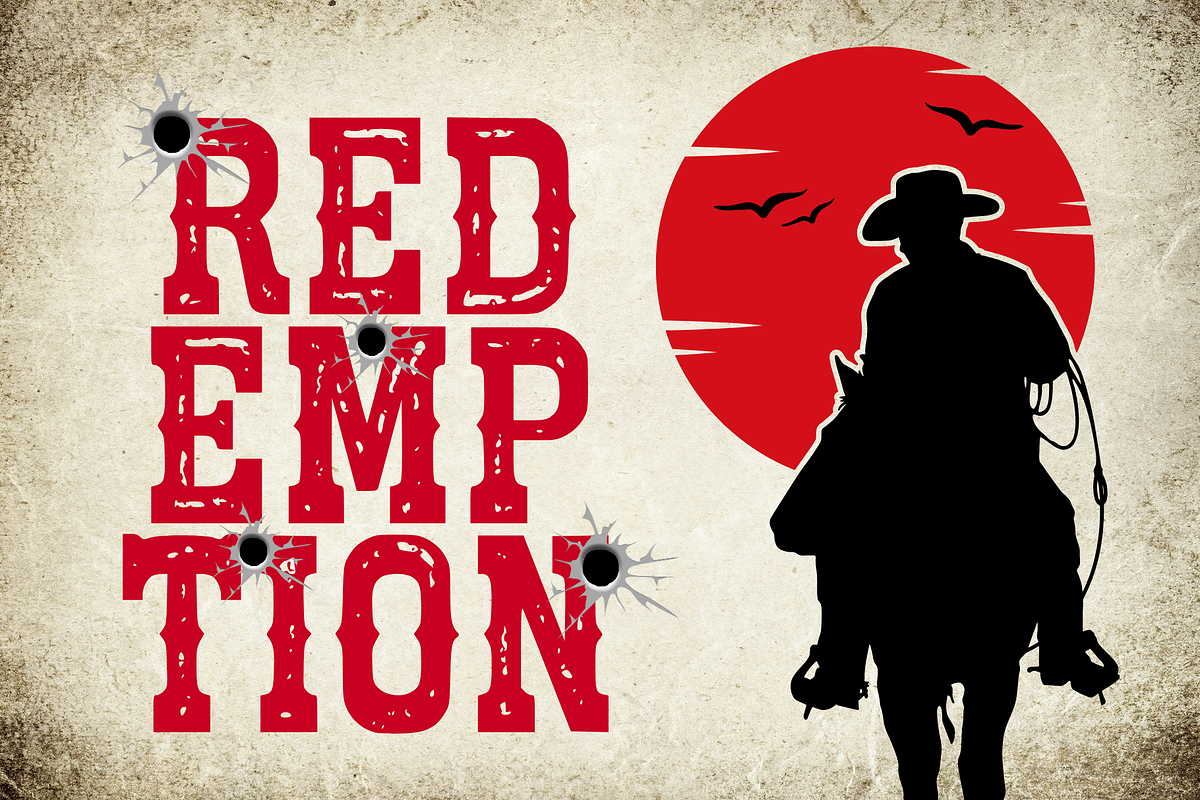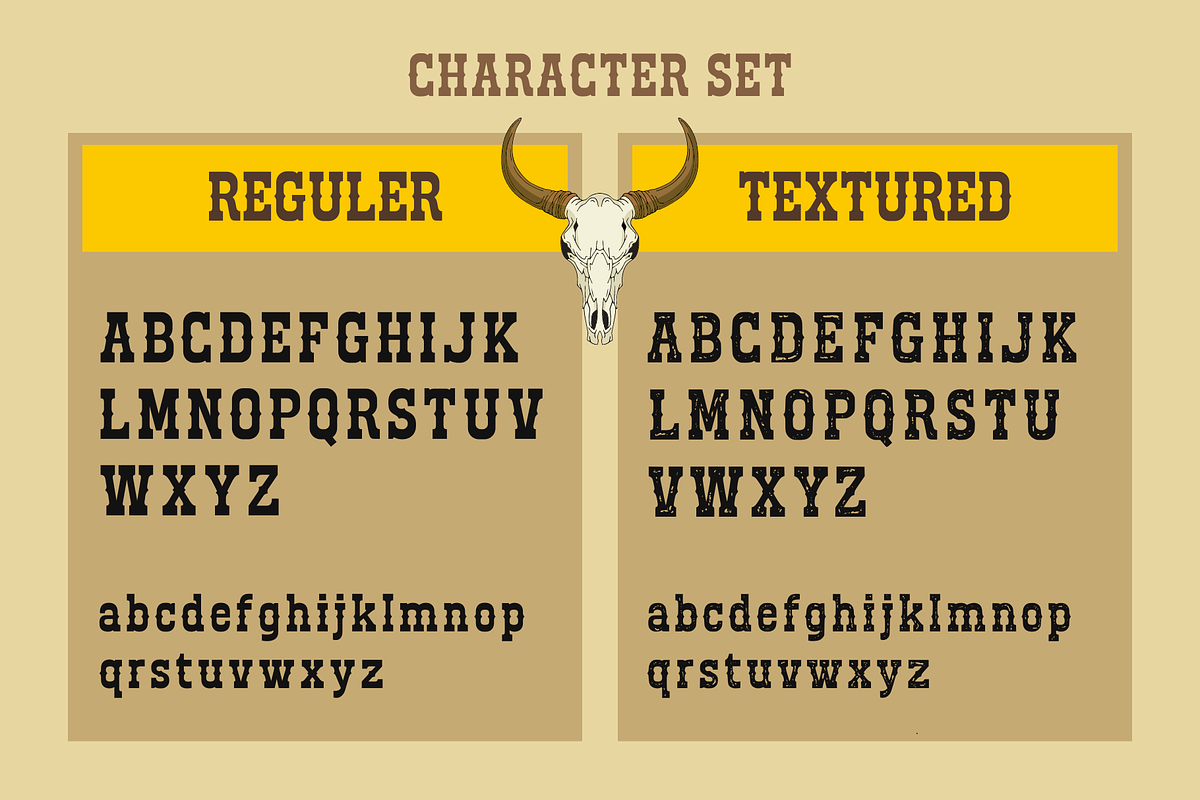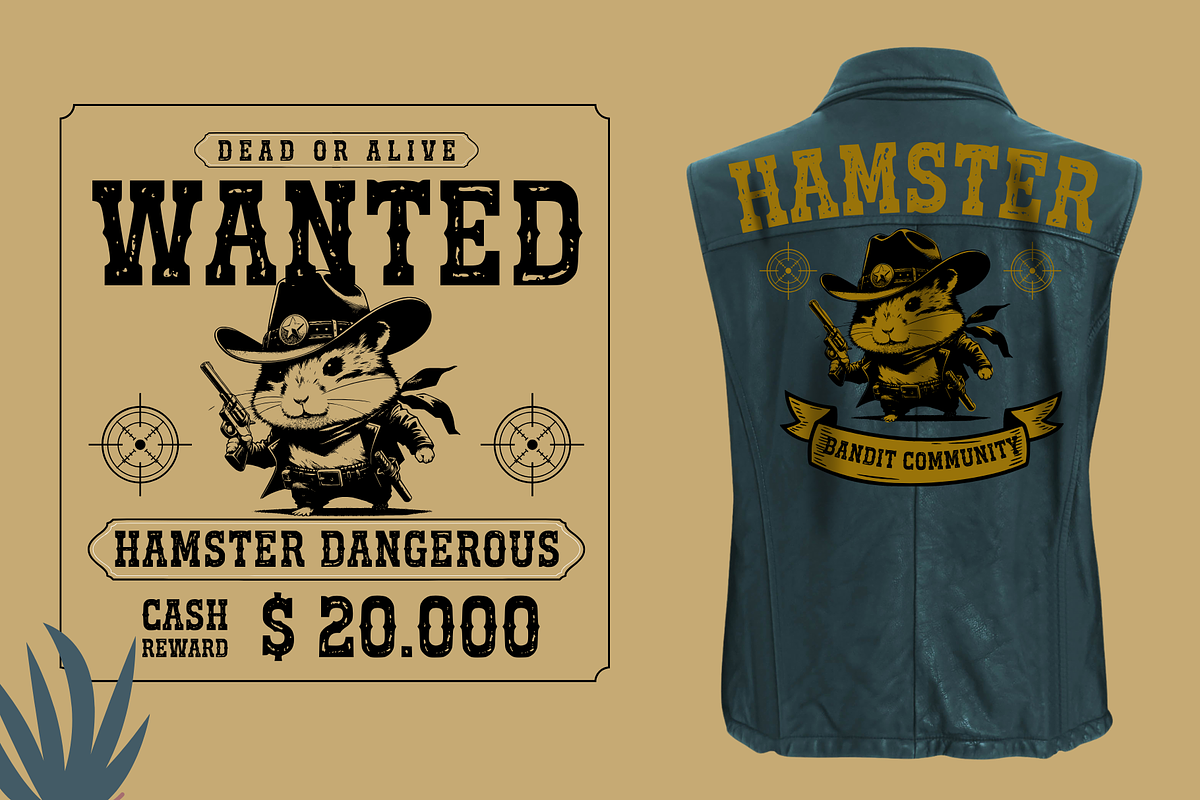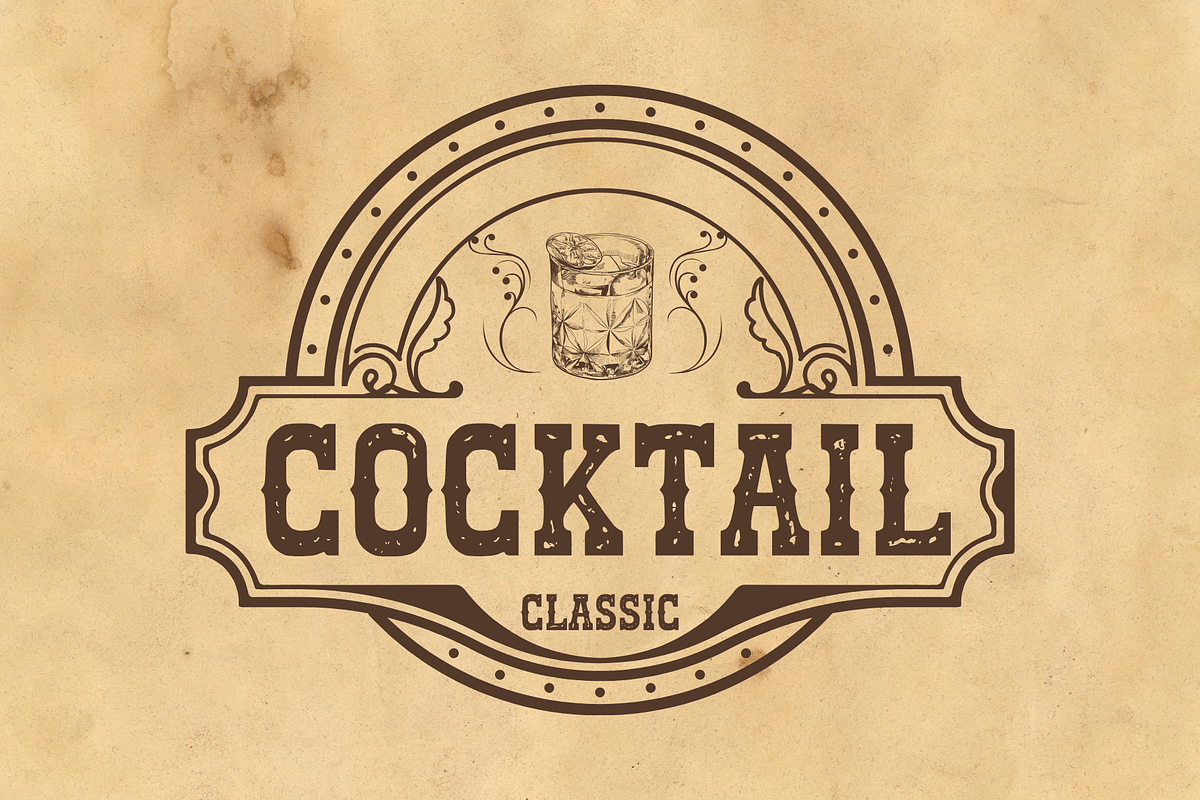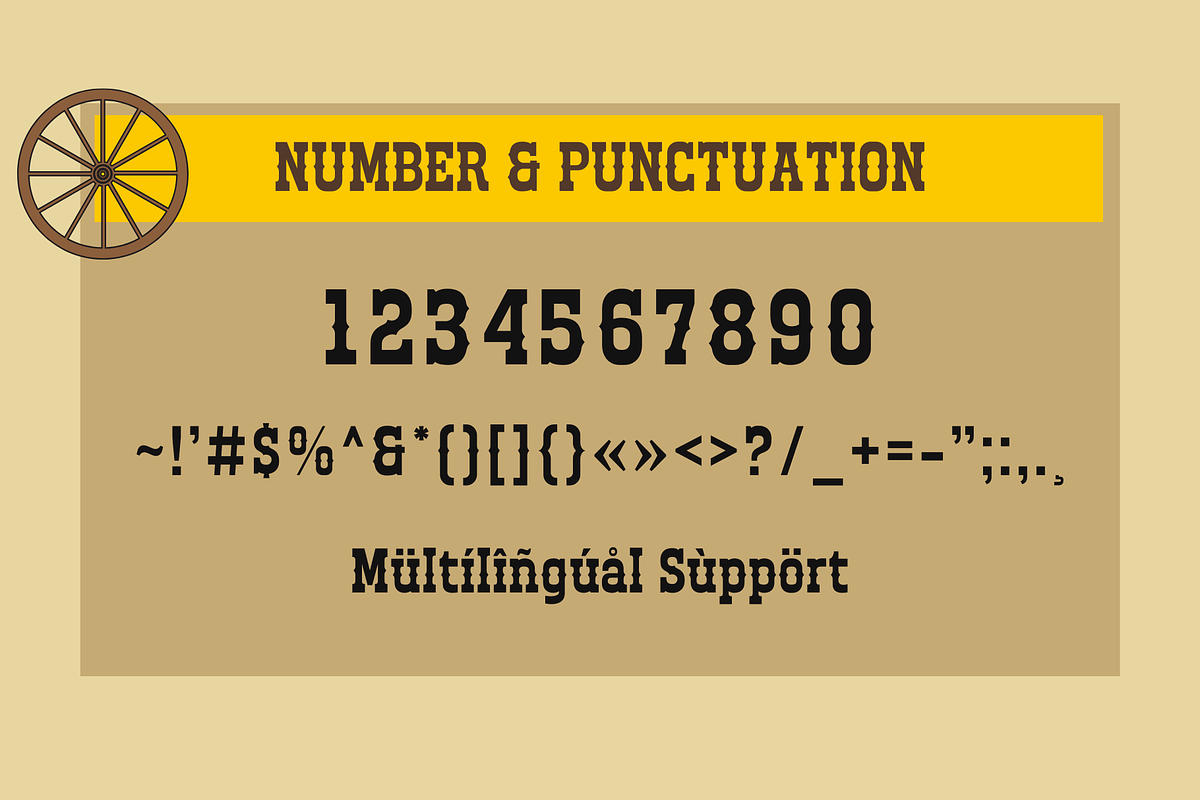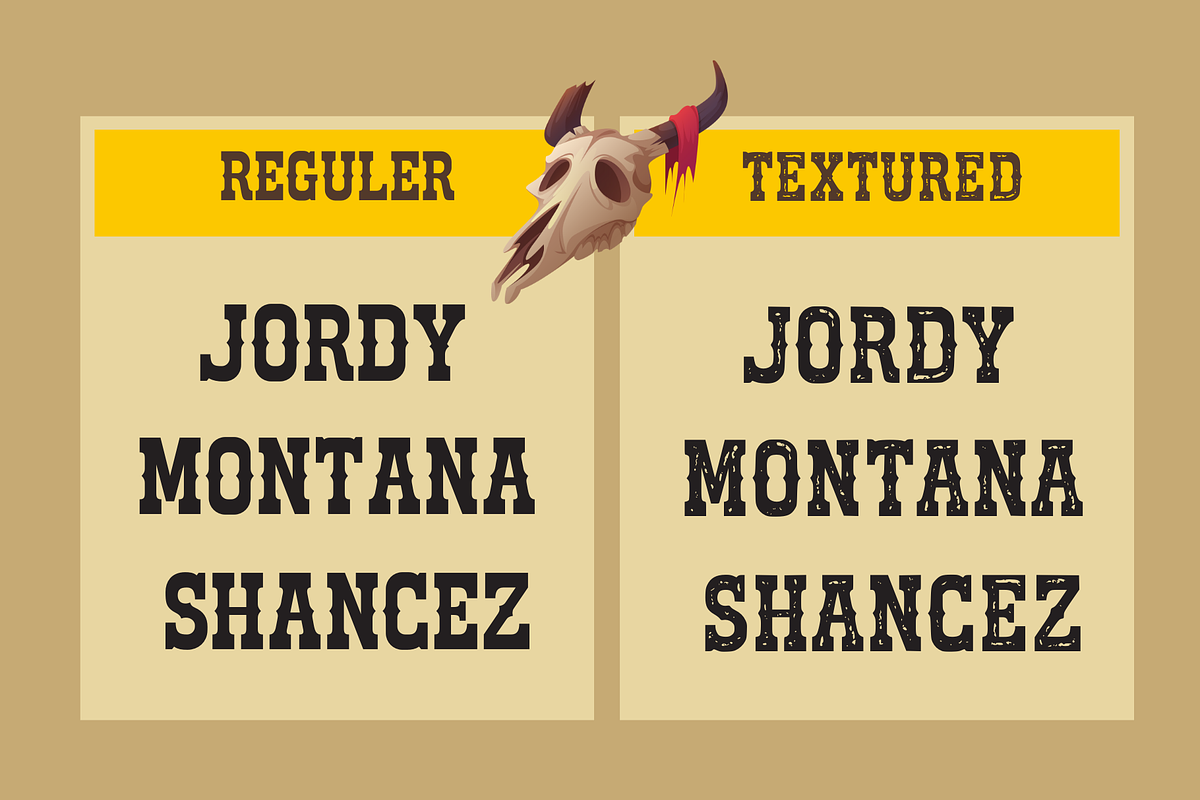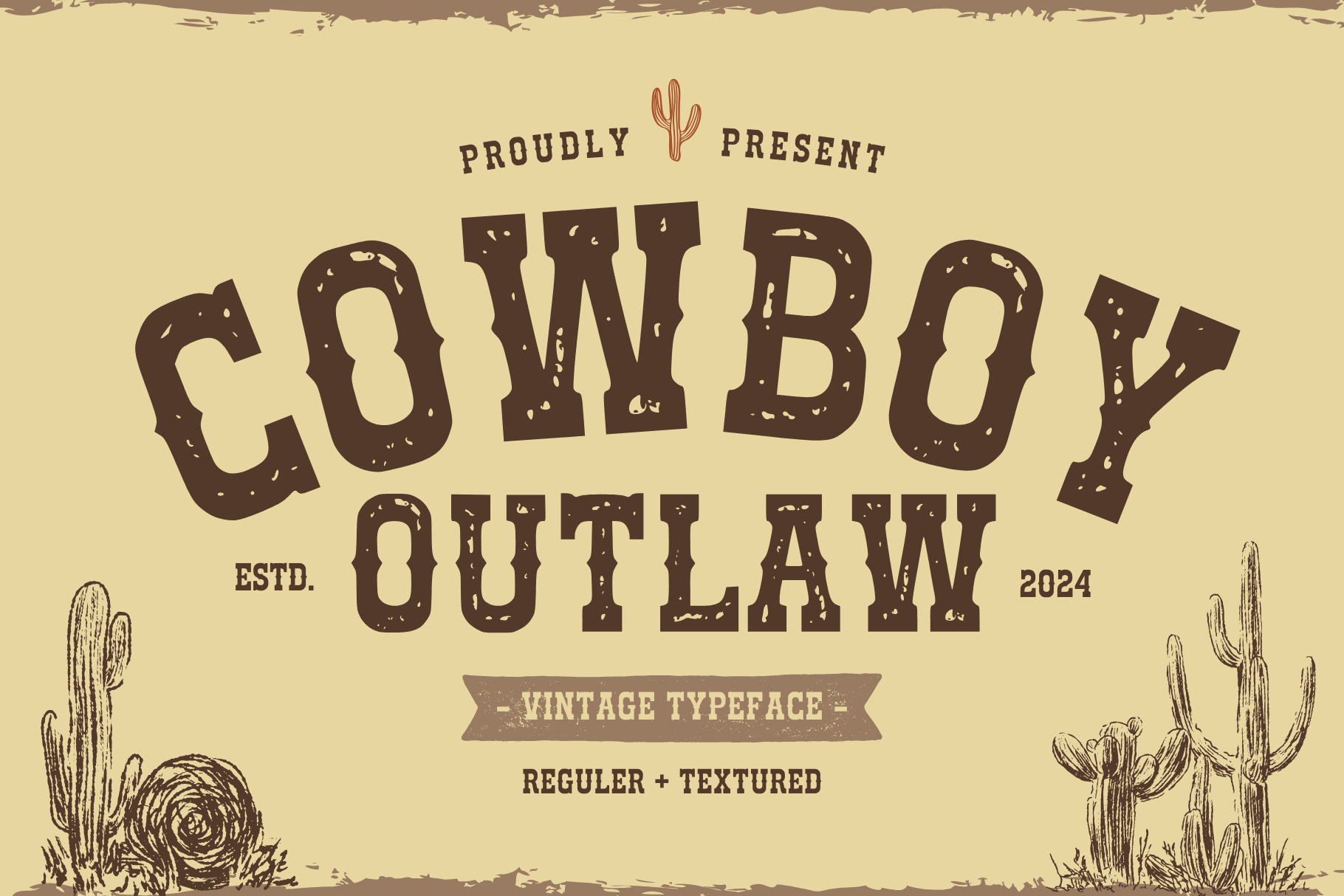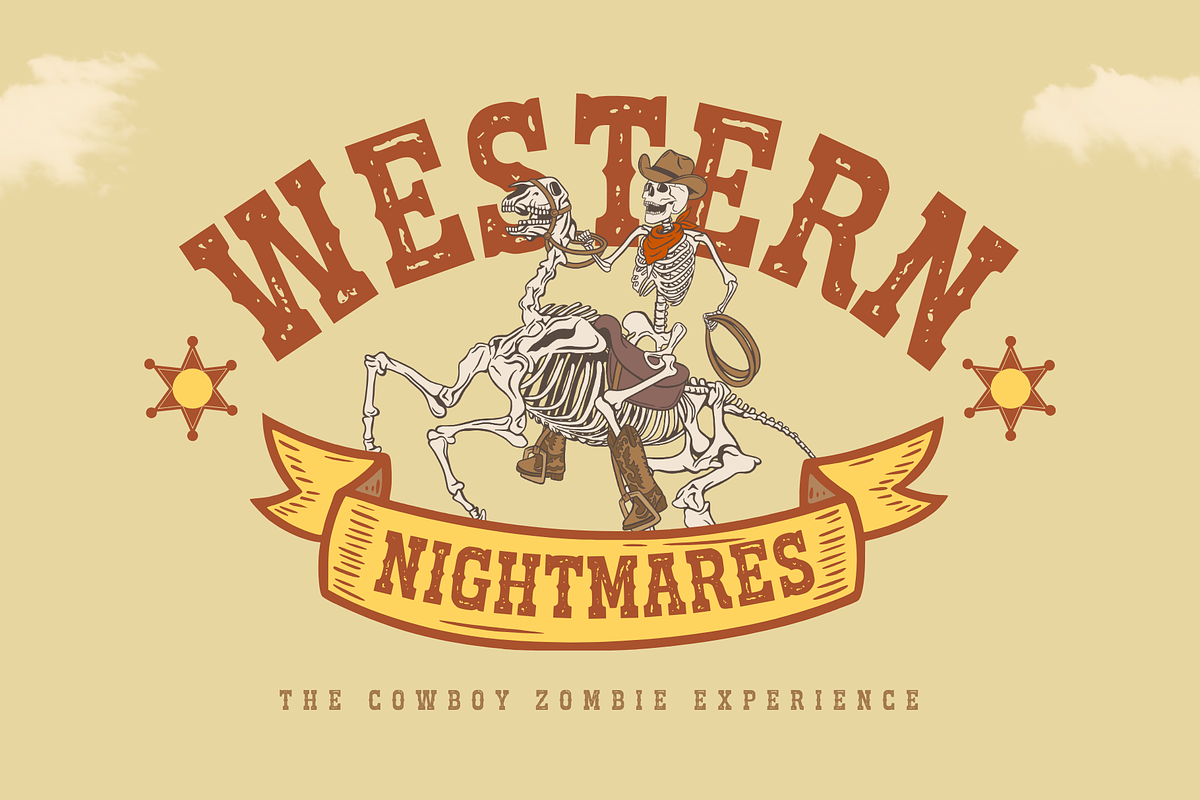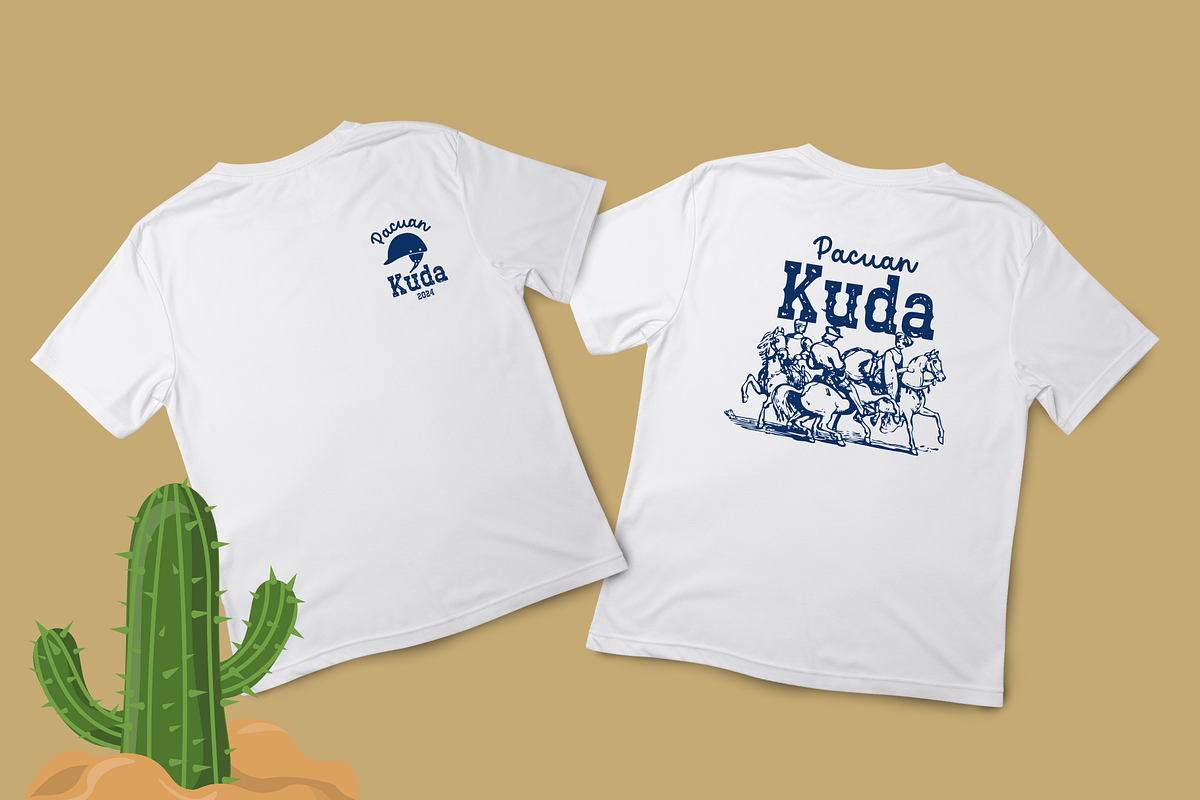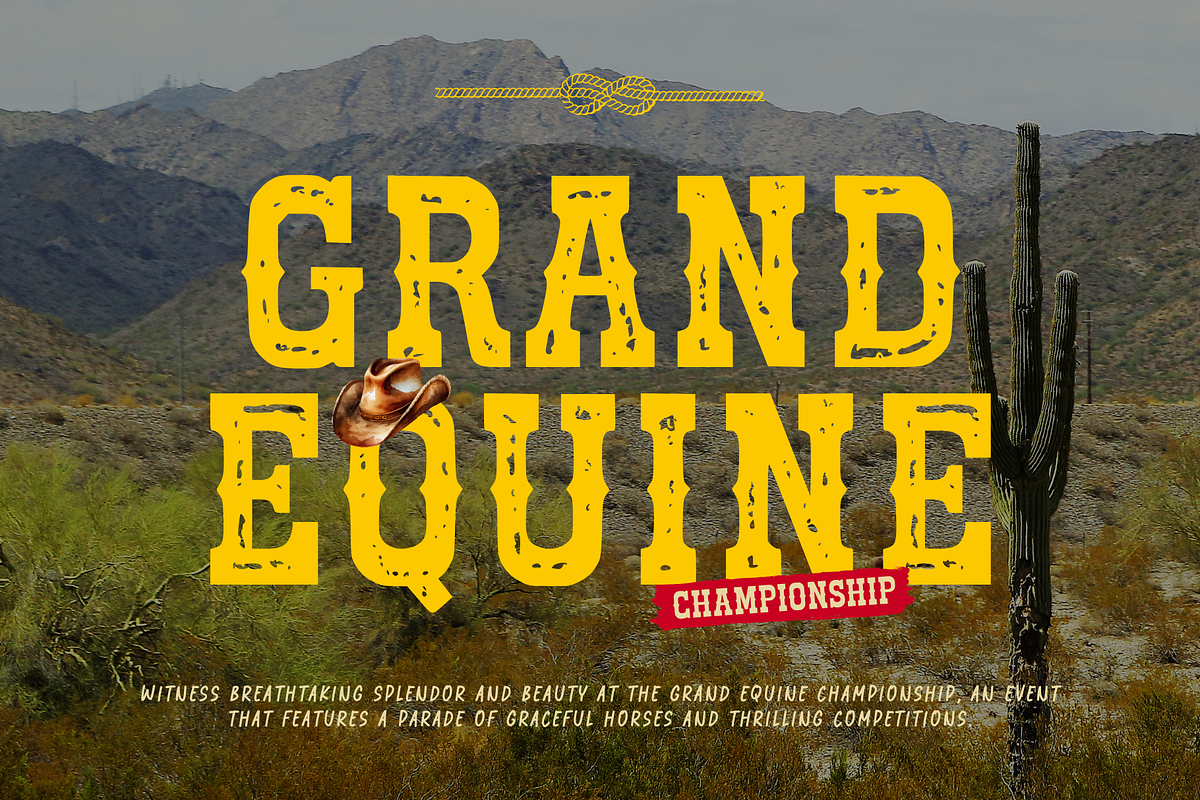
Cowboy Outlaw - Western Font
Introducing "Cowboy Outlaw," a retro cowboy font that captures the rugged spirit of the Wild West. With its bold, vintage letterforms and rustic charm, this font is perfect for adding a touch of frontier flair to your projects. Ideal for posters, logos, branding, and themed events, "Cowboy Outlaw" brings the adventurous and rebellious essence of the cowboy era to your designs. Saddle up and let "Cowboy Outlaw" transport your audience to the untamed landscapes of the Old West.
- 2 Style : Regular & Textured